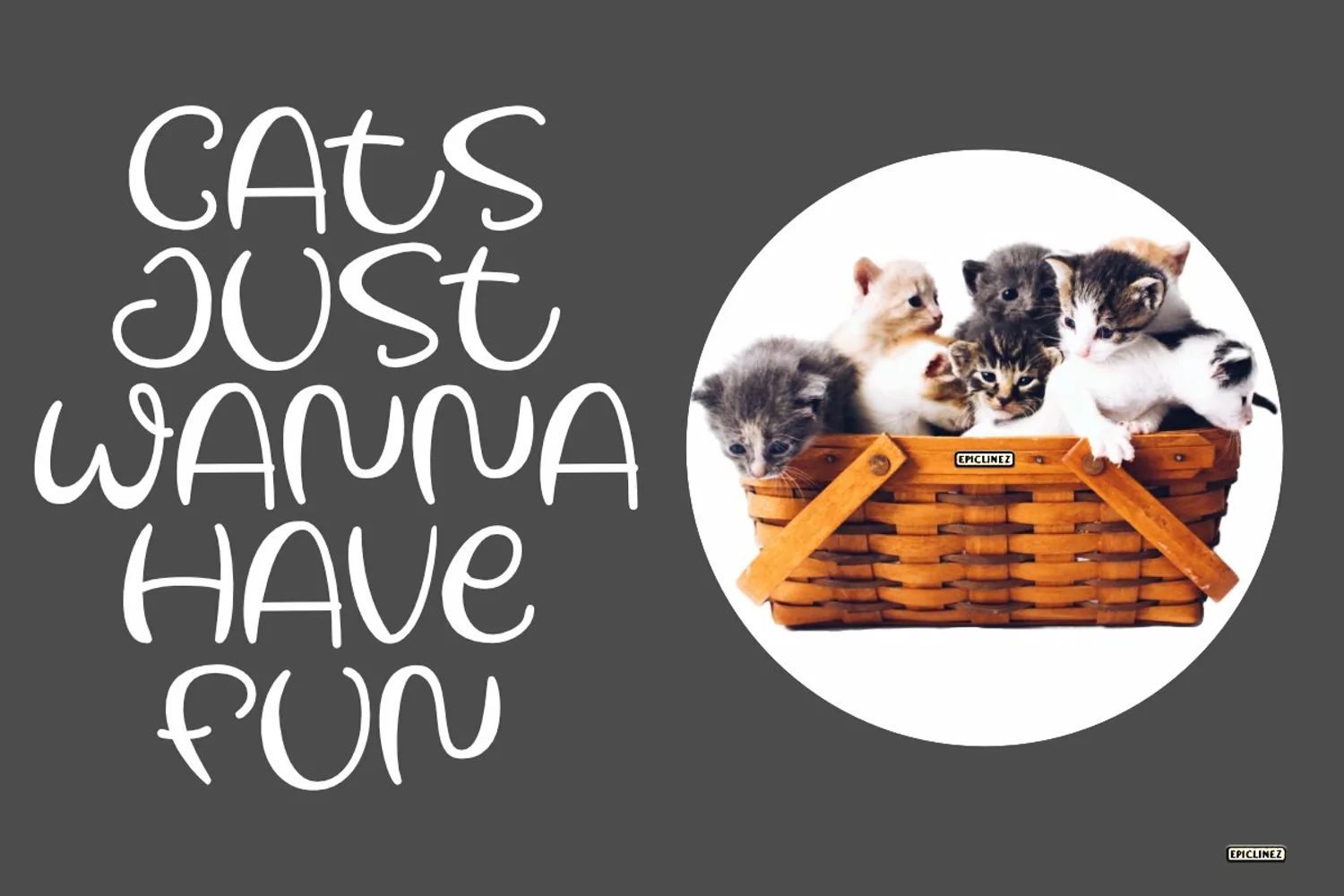
Cheers Mate - A Cute and Playful Font.
Cheers Mate embodies fun, quirkiness, and authenticity. This enchanting handcrafted font will turn any creative idea into a true standout.